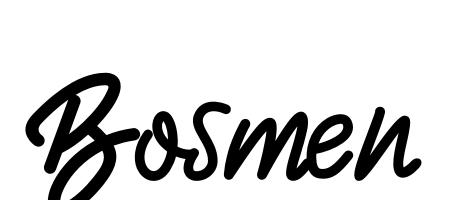
Bosmen
By Christmas Kalingga Abed Nego
Bosmen: A spirited script font, Bosmen dances across the page with playful energy. Its flowing strokes and slightly whimsical letterforms evoke a sense of joyful movement. Perfect for headings, logos, or anything needing a touch of fun and flair, Bosmen adds personality to any design.